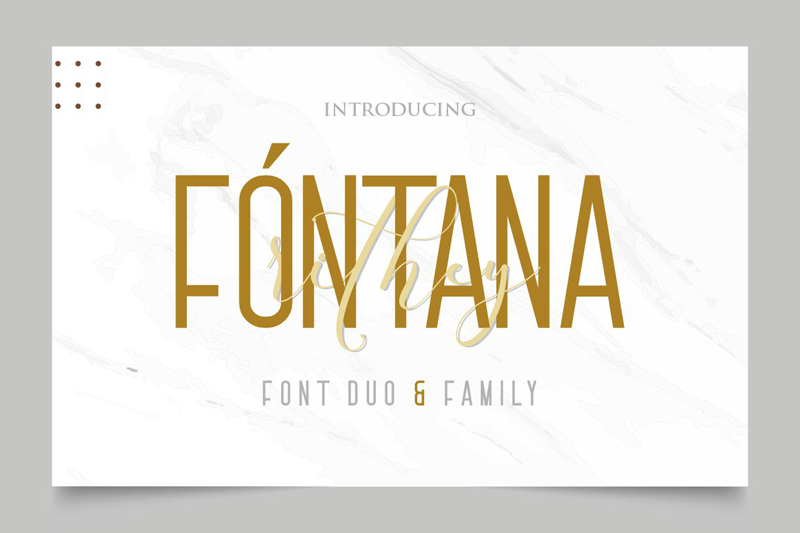
Preview and download F�ntana Font. Created by Gilar Studio in Basic Sans serif styles with Free for personal use license.
Introducing Fontana Rithey - A Font Duo ! The Fontana Rithey - A Font Duo is a combination of an elegant sans serif font & beauty calligraphy script font based on the expression . The Fontana Rithey - A Font Duo will work perfectly for fashion, e-commerce brands, trend blogs, wedding boutiques or any business that wants to appear upscale and chic. The Fontana Rithey - A Font Duo also Suitable for Logo, greeting cards, quotes, posters, branding, name card, stationary, design title, blog header, art quote, typography, art, modern envelope lettering or book design, happening style like handdrawn design or watercolor design theme, craft design, any DIY project, book title,or any purpose to make your art/design project look pretty and trendy. Product Content : -Fontana OTF & TTF -Rithey Script OTF & TTF -Preview Images Features : -Numerals & Punctuations (OpenType Standard) -Accents/Multilingual characters -PUA Encoded See Full Version Here : https://www.creativefabrica.com/product/fontana-rithey/ref/236330 Give it a try! You will surely love it! Thanks and have a wonderful day, Gilar :) |